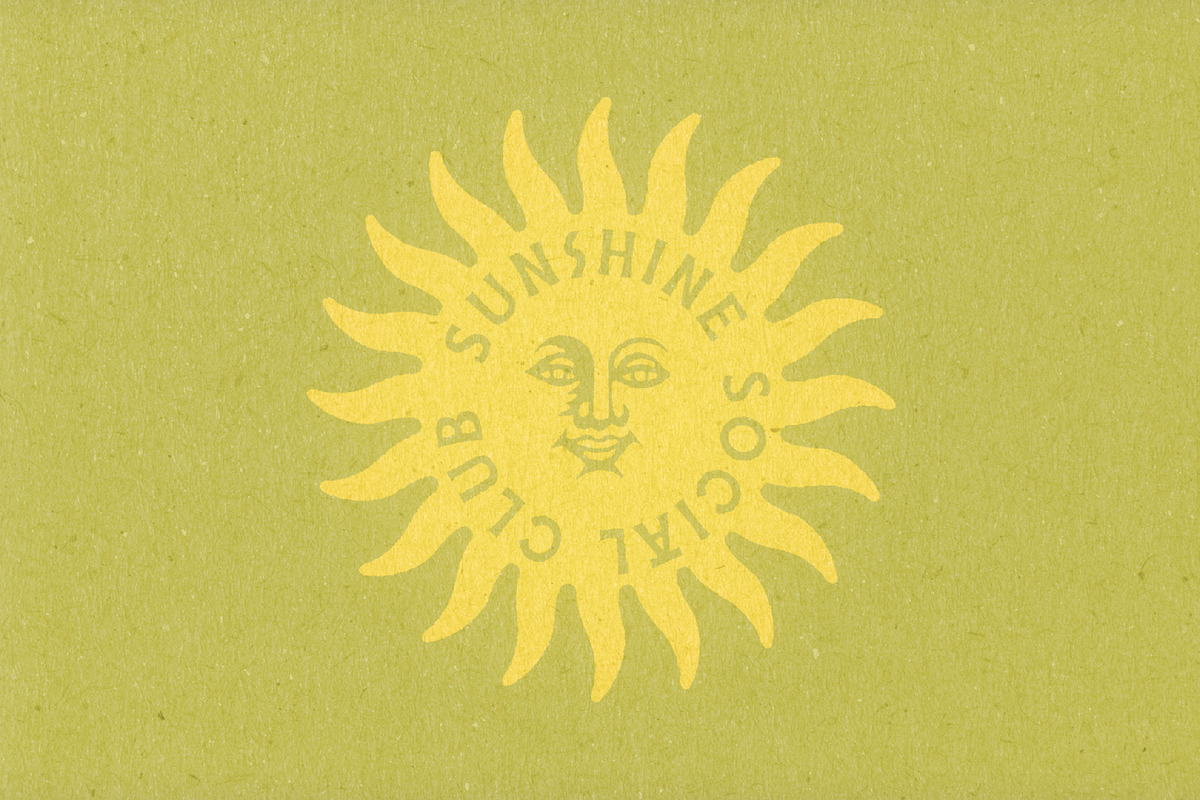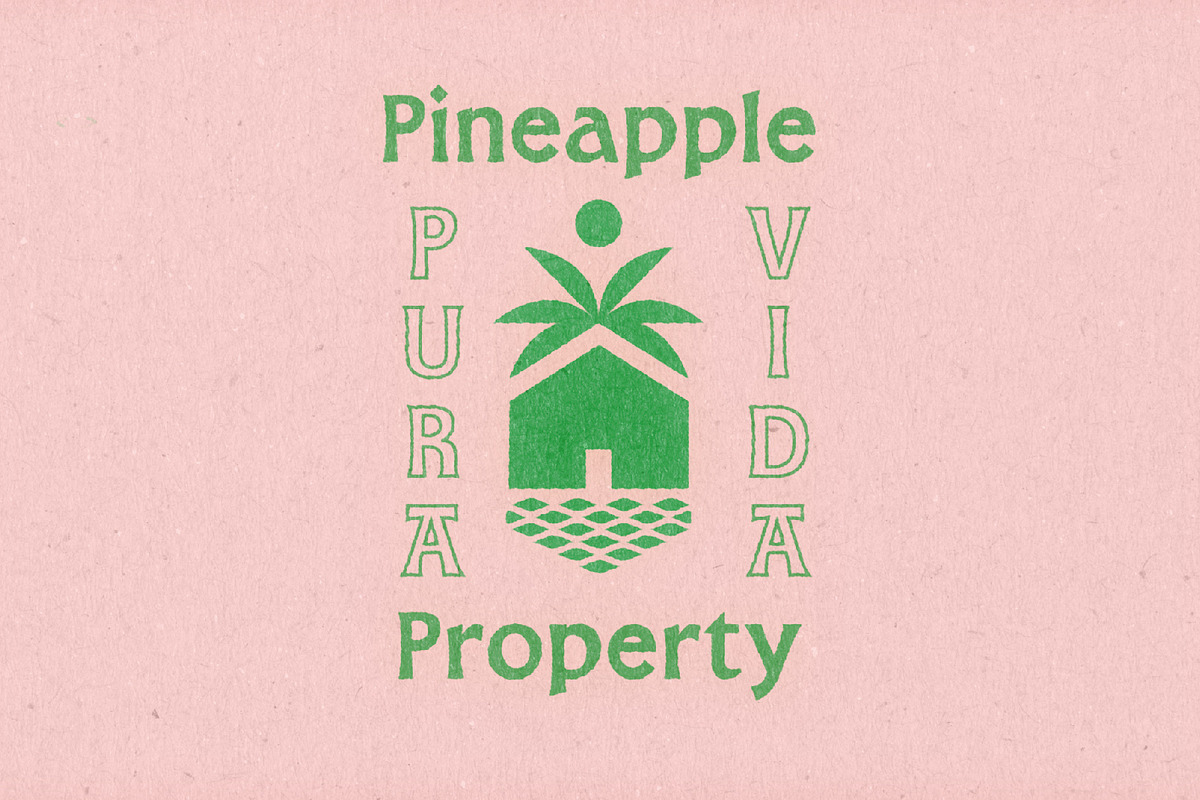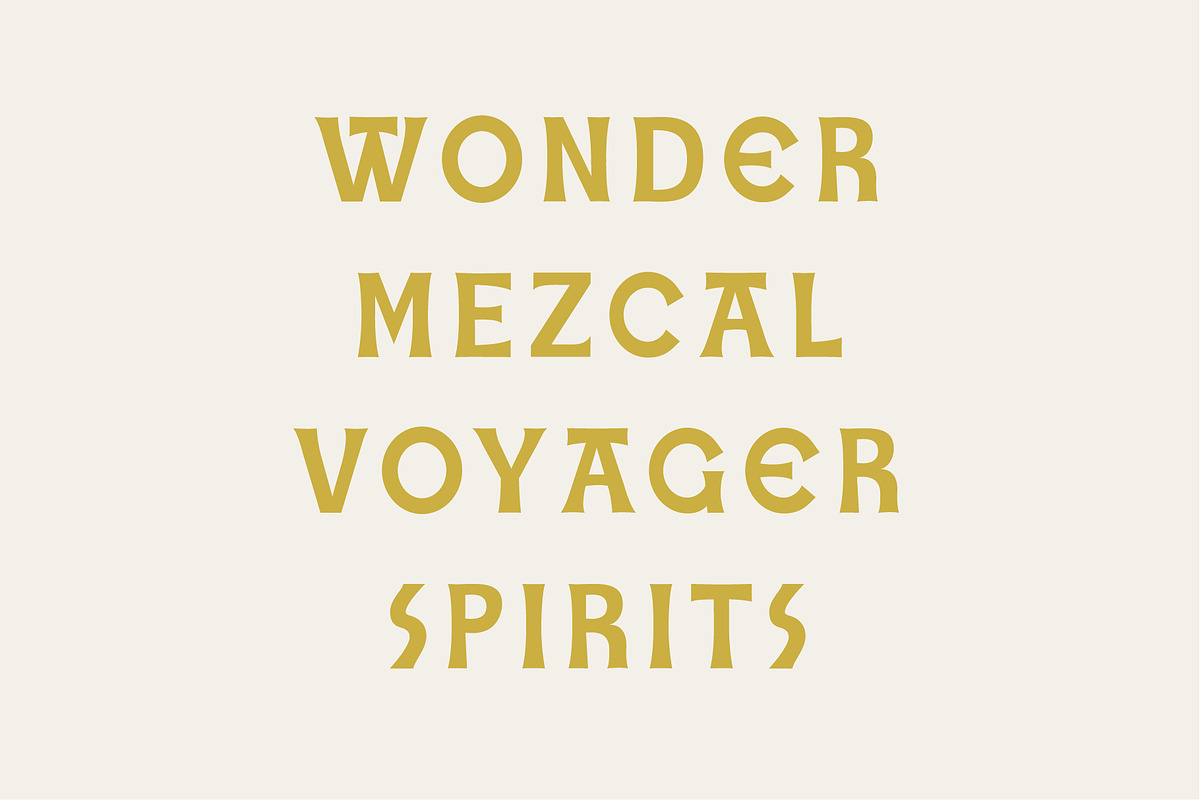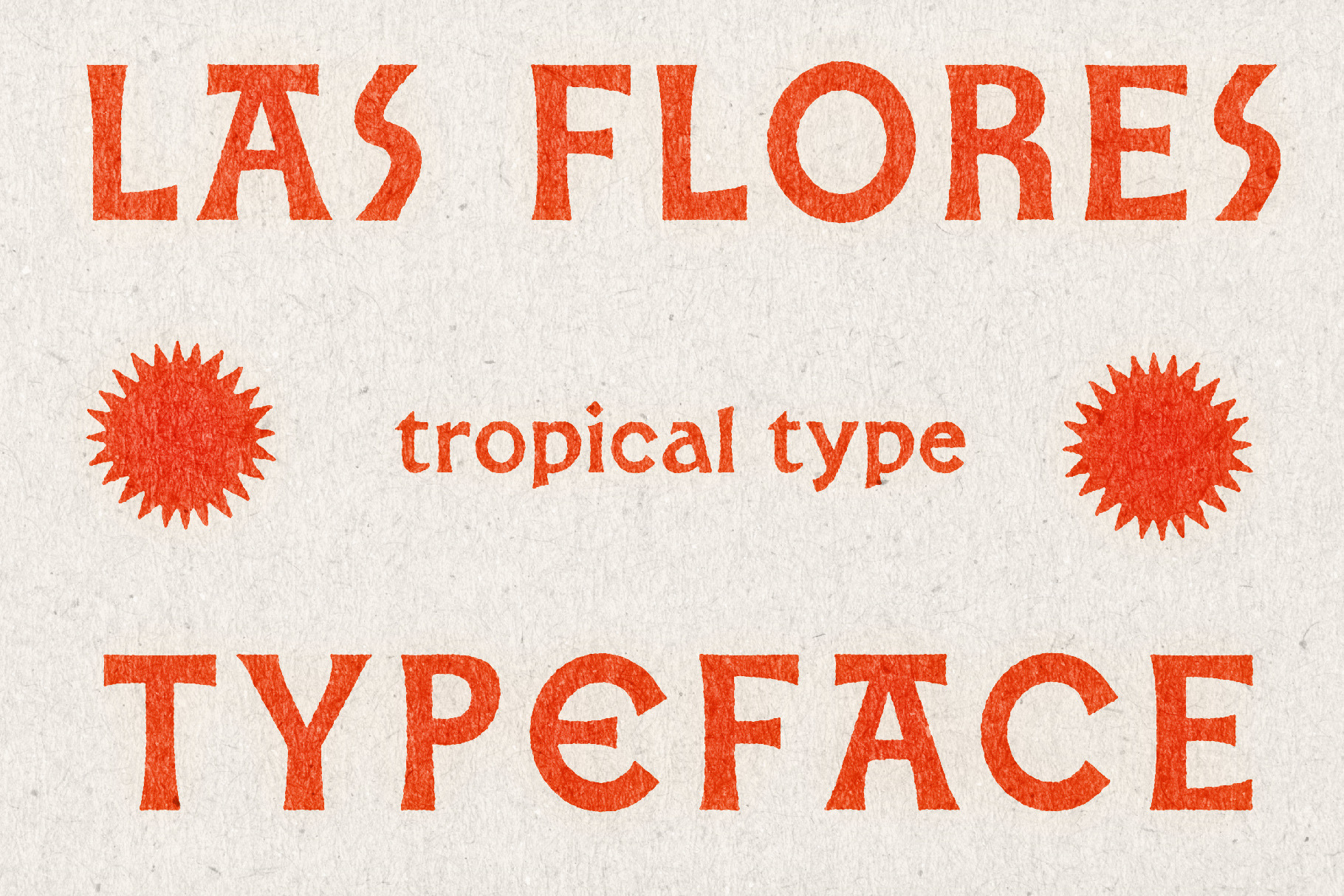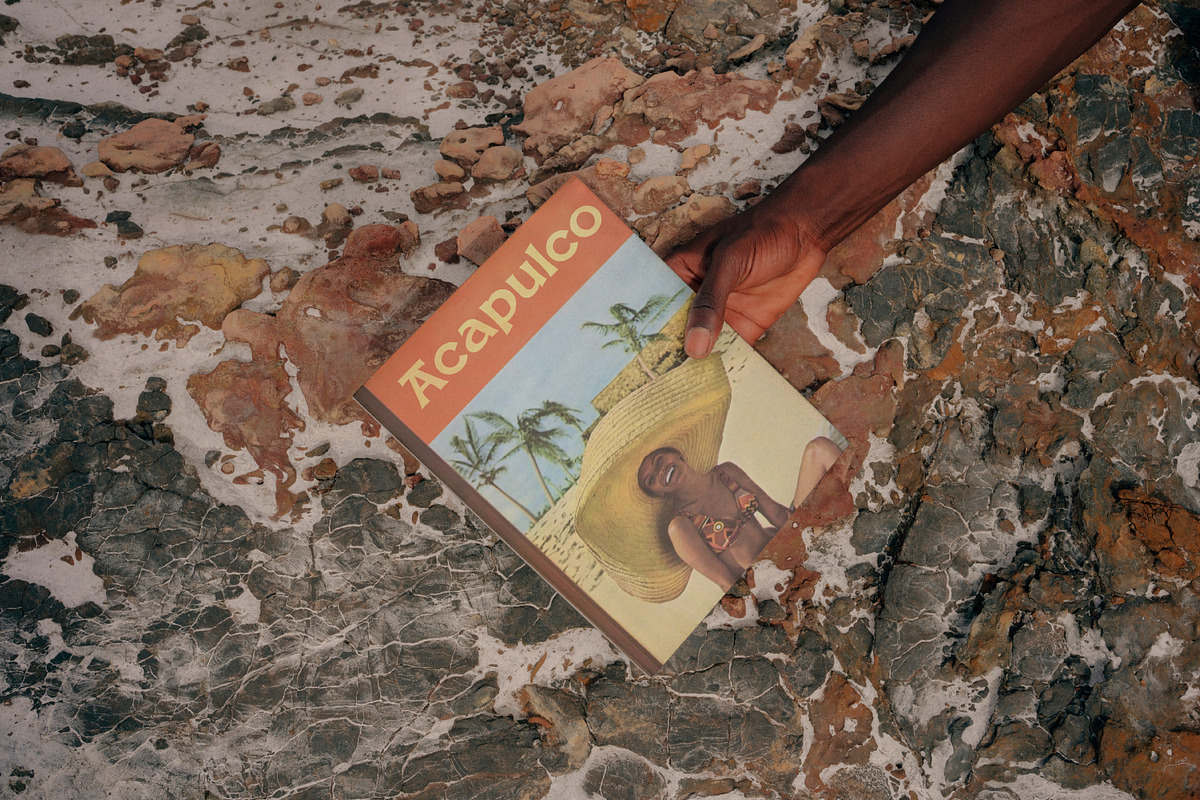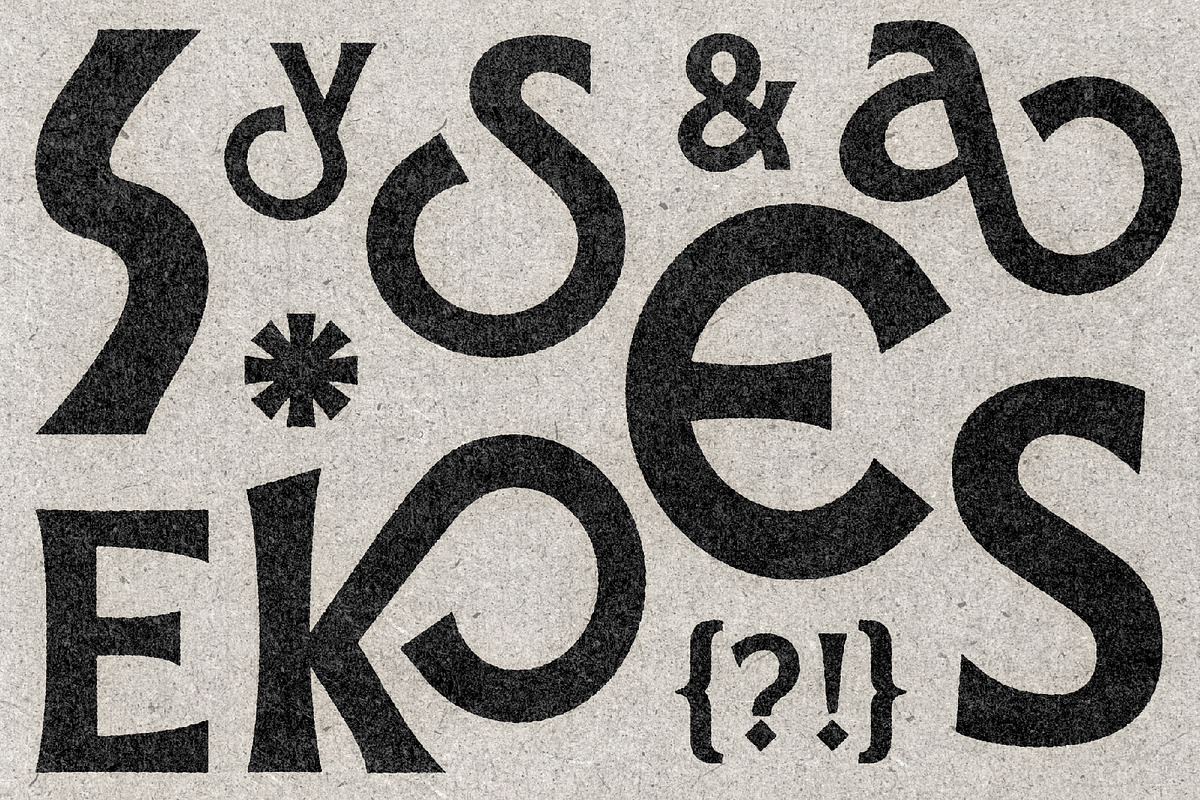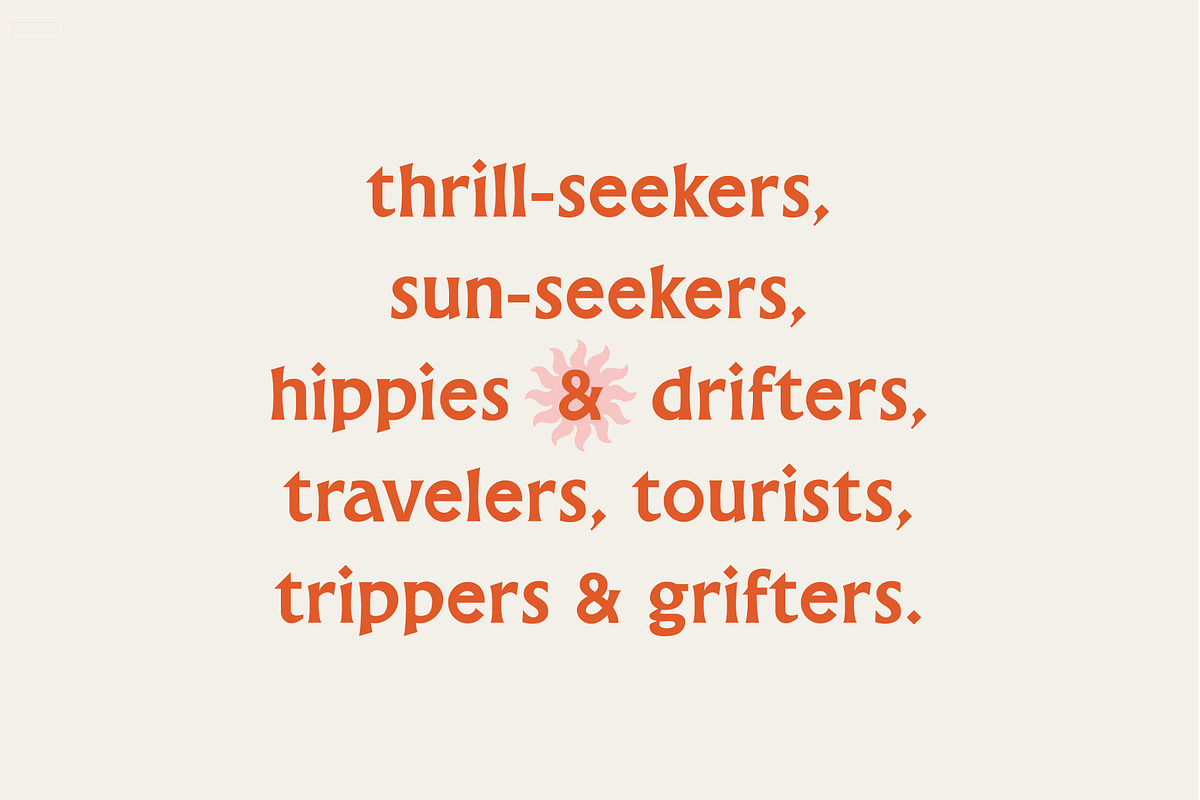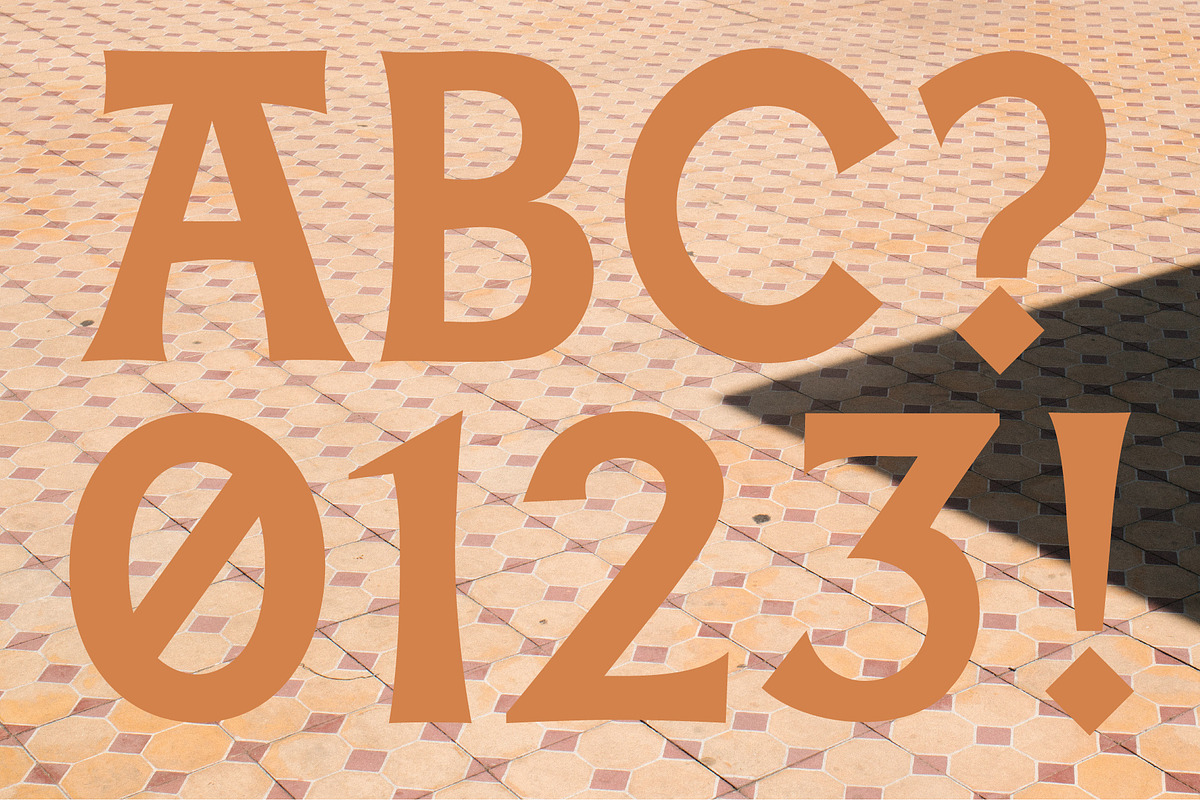
Las Flores - Mexican Font
Las Flores is a serif typeface of Mexican influence, both modern and ancient. It pair perfectly with the directors italic and heyday display, both found in this shop! Throw a bit of texture on top for maximum nostalgia. Enjoy.